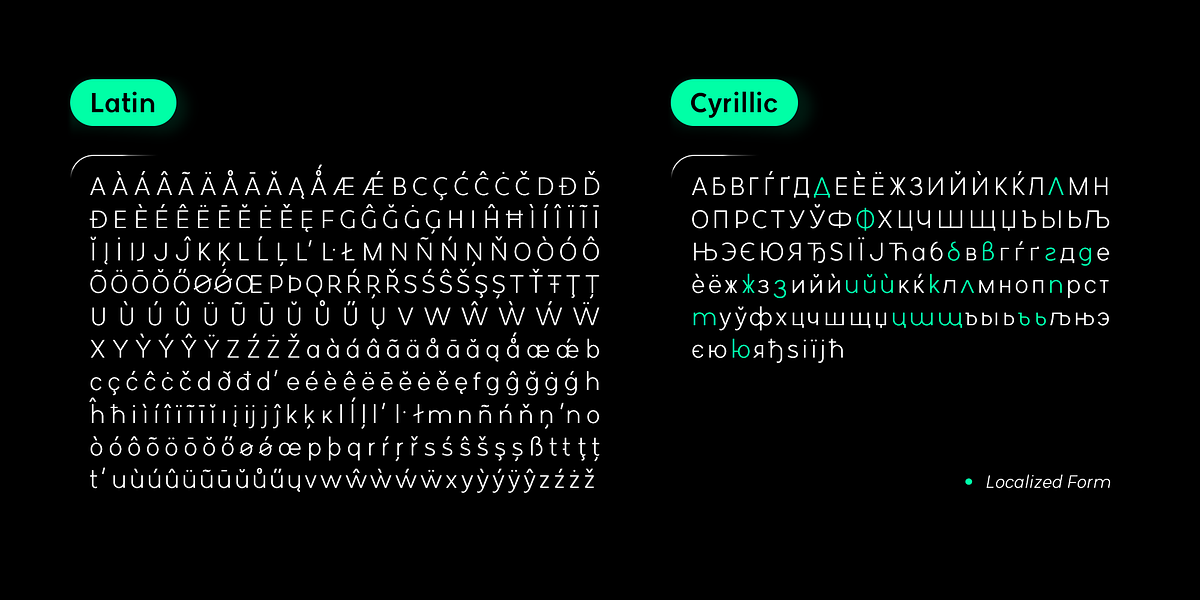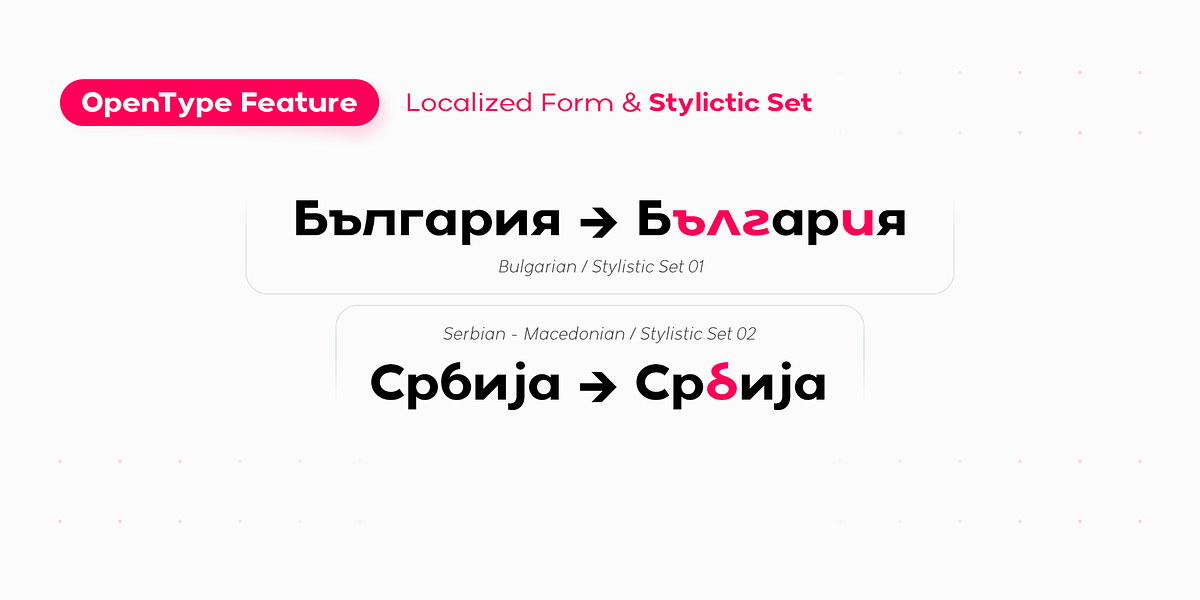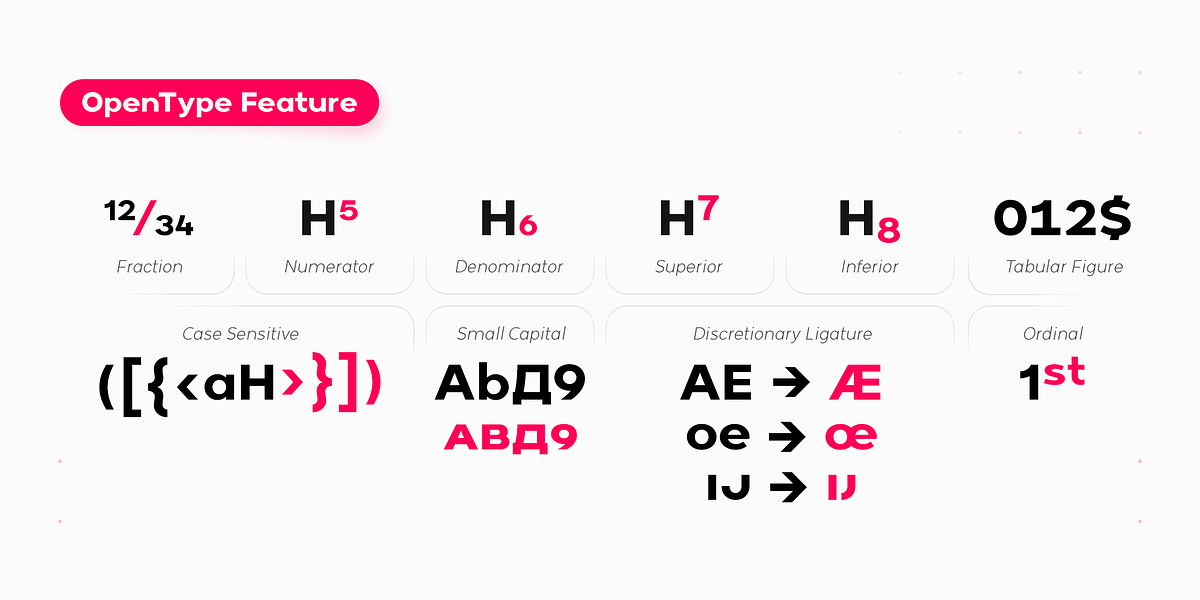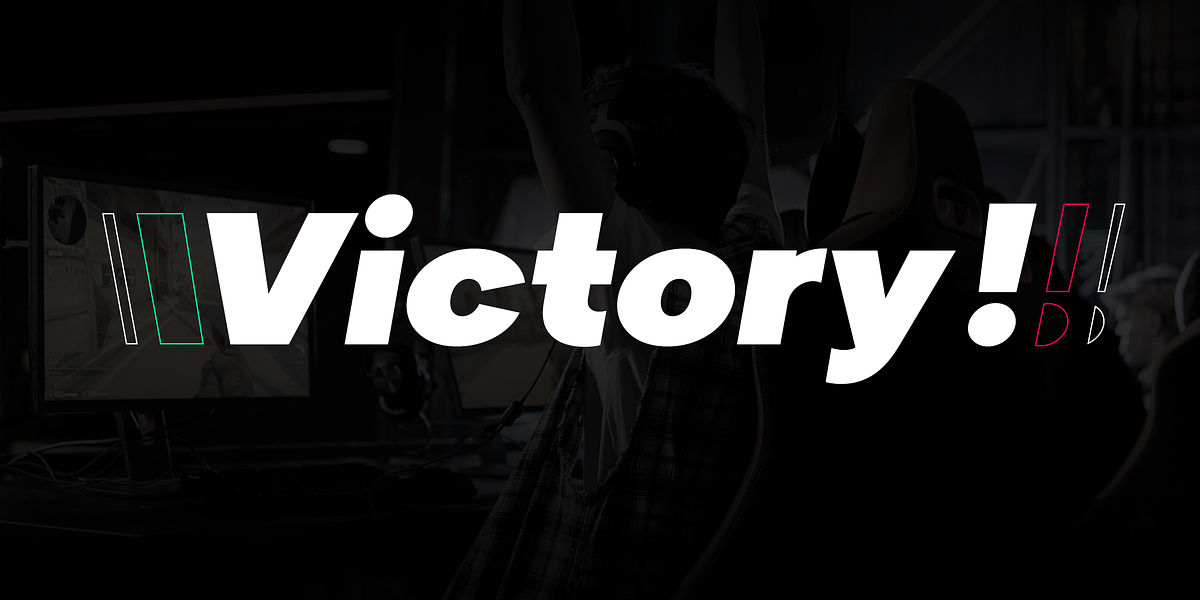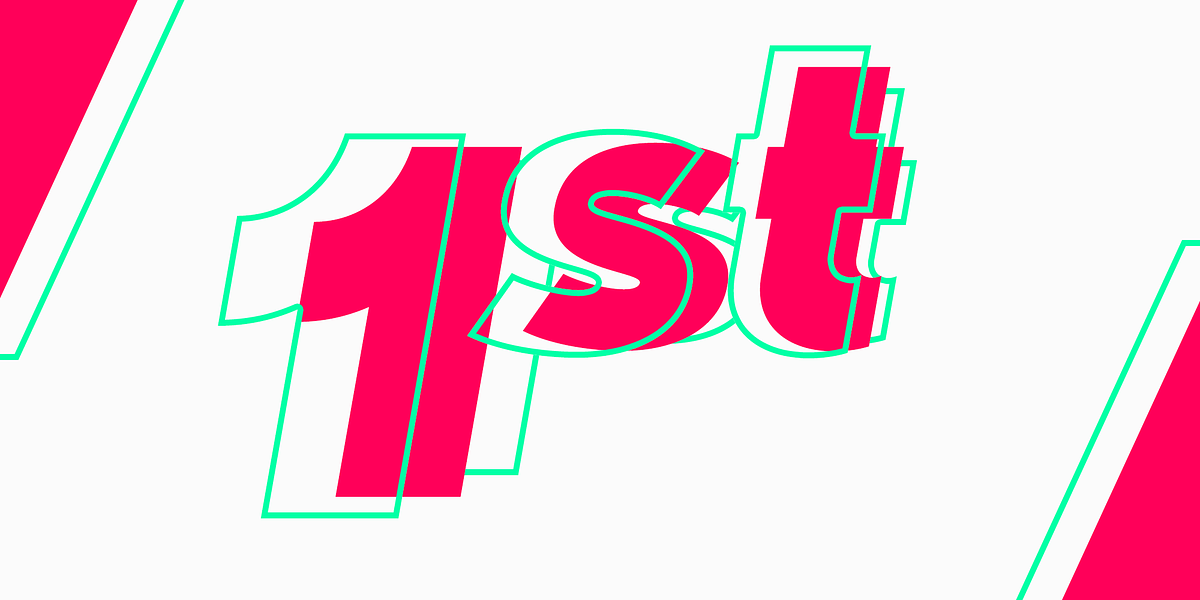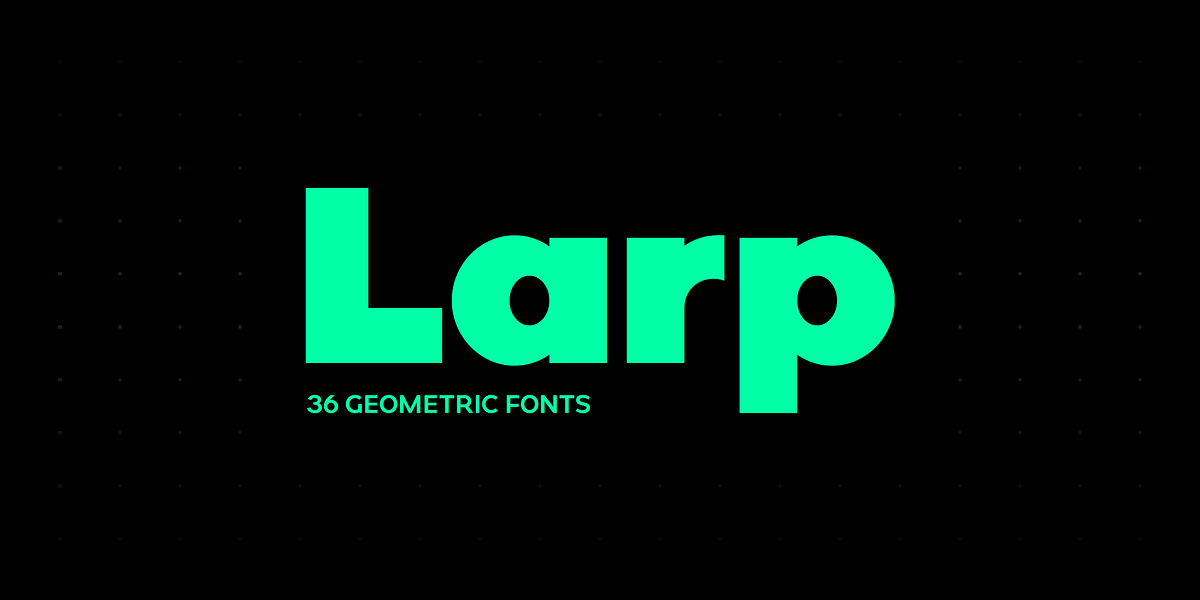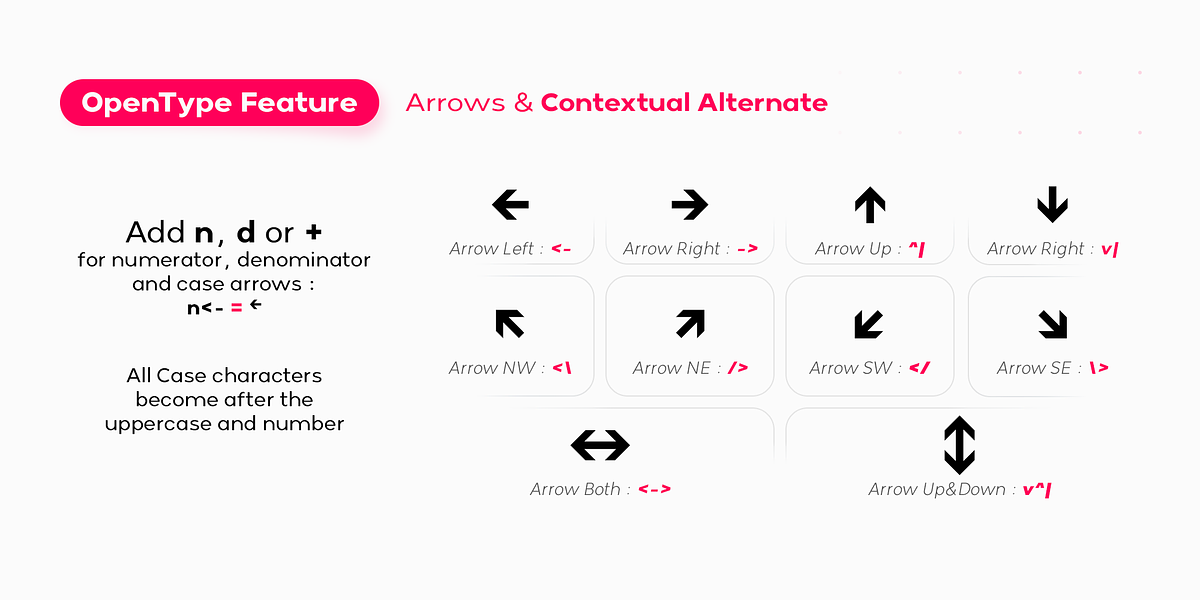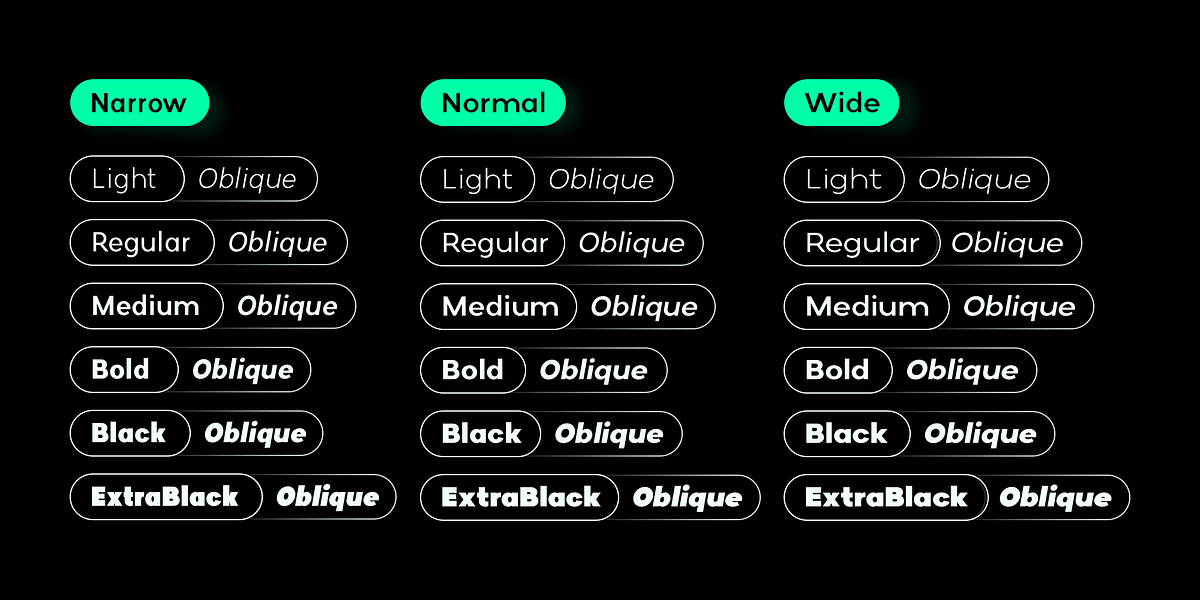
Larp
Larp is a contemporary geometric sans-serif font family designed for versatility. It offers six weights ranging from light to extrablack and three widths (narrow, normal, wide) with corresponding oblique versions. The extensive OpenType feature set allows for advanced typographic control, including fractions, numerators, denominators, superiors, inferiors, tabular figures, small capitals, discretionary ligatures, contextual alternates, stylistic sets for localized forms, and more. Larp supports a wide range of languages in both Latin and Cyrillic alphabets, making it suitable for international projects. Its clean, modern aesthetic makes it ideal for branding, web design, print materials, and other applications requiring a bold yet legible typeface.